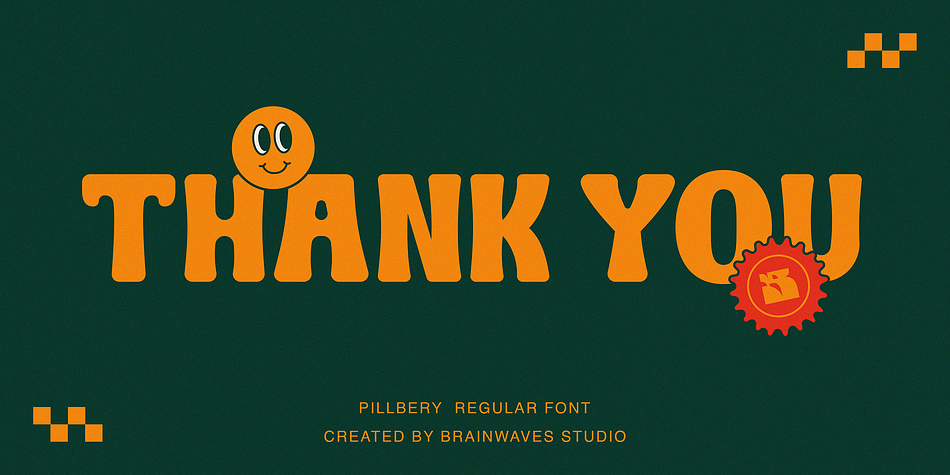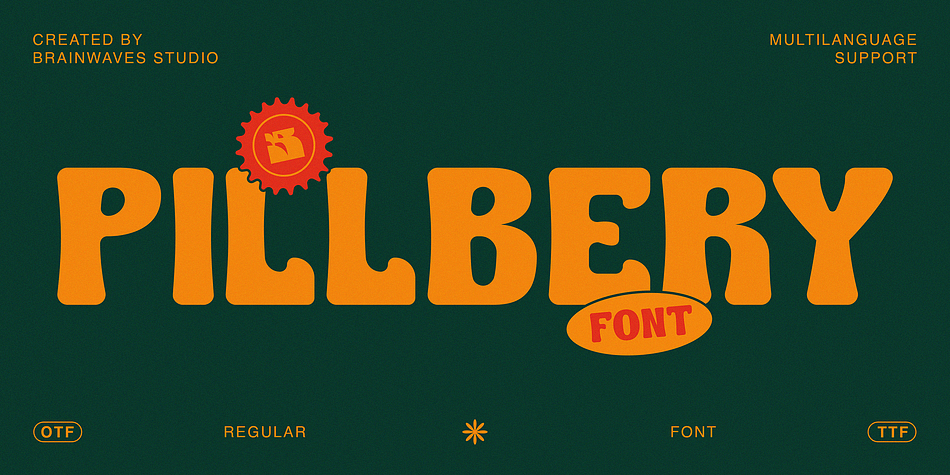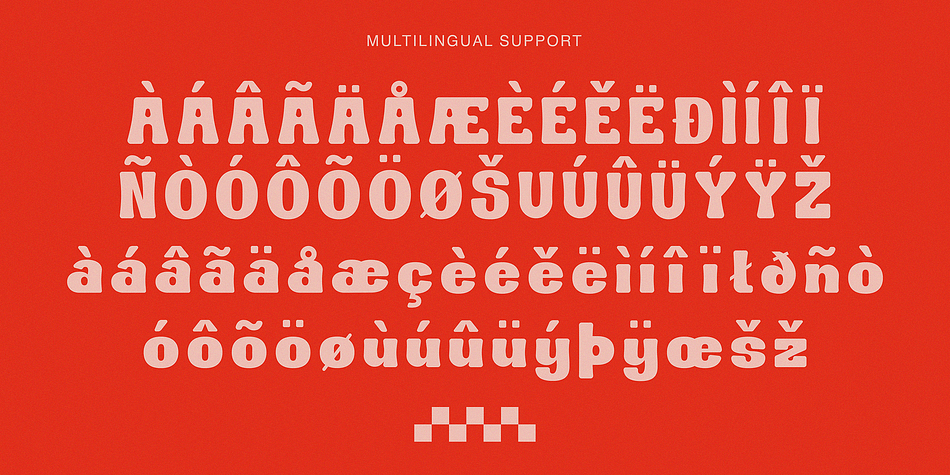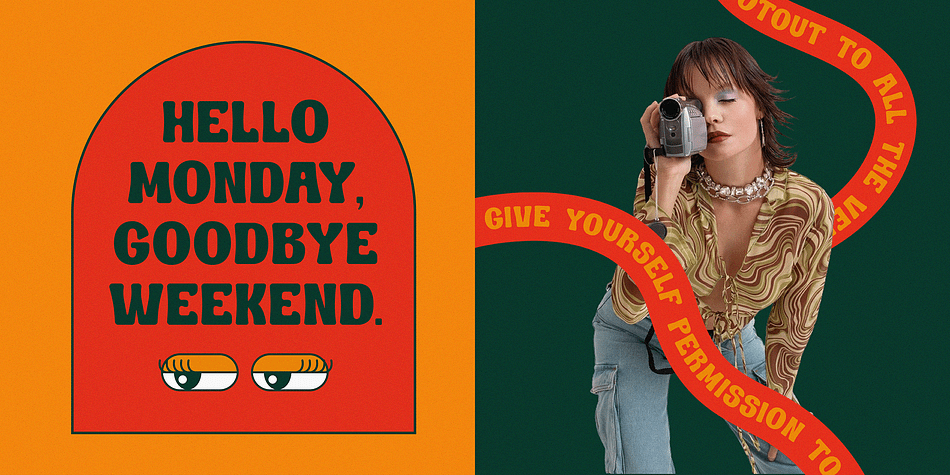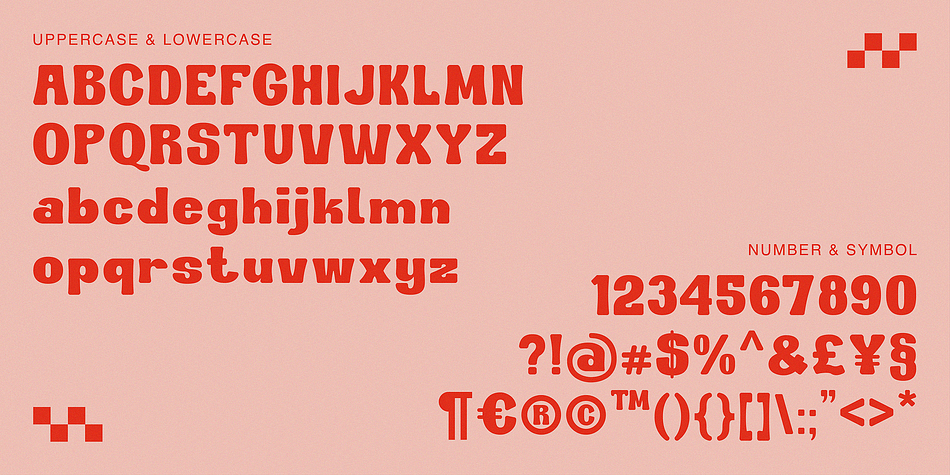
Pillberry
Designed by Lucky Fitriadi, Pillberry is a retro font family. This typeface has two styles and was published by Brainwaves Studio.
THIS IS OUR NEW FONT RETRO DISPLAY PHILLBERRY, PHILLBERRY HAD A TASTE OF RETRO, BOLD, DISPLAY, MINIMALIST FONT. THIS FONT GOOD FOR LOGOTYPE, LOGO TEXT, GRAPHIC DESIGN FOR RETRO THEME.